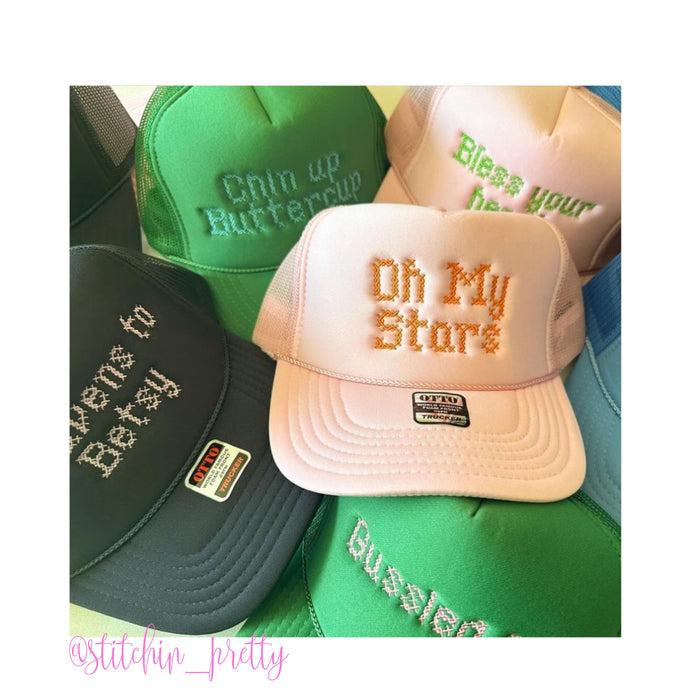
Cross Stitch Satin Embroidery Font Pack
Transform your craft projects with our Cross Stitch Satin Embroidery Font Pack. This versatile set features uppercase and lowercase letters alongside numbers 0-9, allowing for endless customization. Included are 62 individual files in various sizes (1”, 1.5”, 2”, 2.5”, 3”), all compatible with 4x4 hoops or larger.